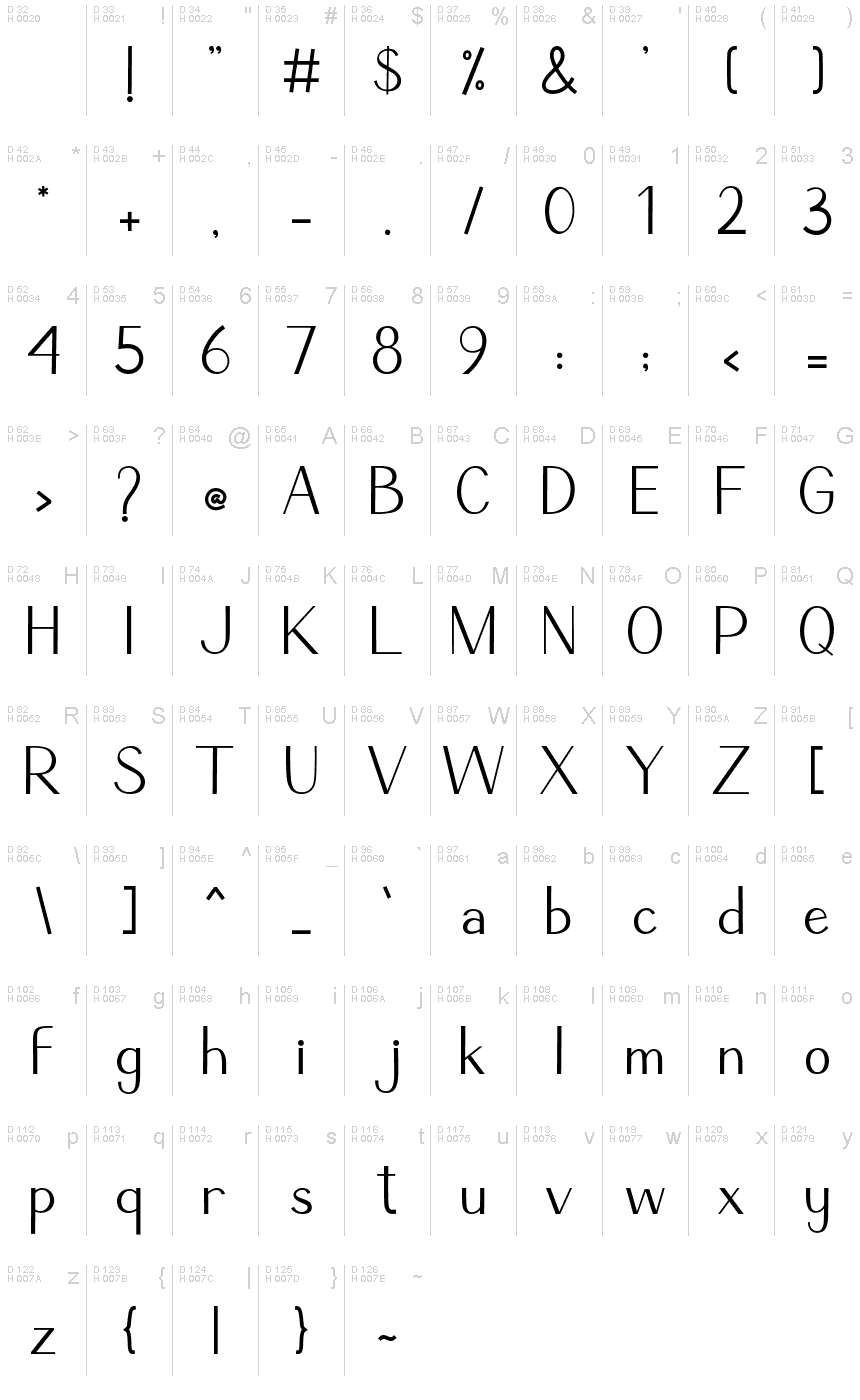
Christmas Combine Sans
Introducing Christmas Combine Sans, a light sans serif font from AEN Creative Studio 2021. Perfect for creating modern holiday cards, winter-themed projects or any festive project requiring an extra touch of cheer!